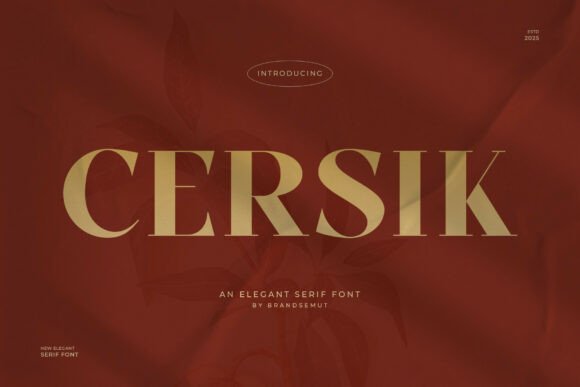
Cersik Font: Elevate Your Designs with Elegance and Sophistication
In the world of typography, a well-crafted font can make all the difference in elevating your designs from ordinary to extraordinary. For designers who demand sophistication and clarity, Cersik Font is an elegant and modern serif font that is sure to impress. With its well-balanced uppercase and lowercase letters, this typeface offers timeless beauty with a modern edge, making it ideal for luxury branding, magazine headlines, premium packaging, wedding invitations, and fashion-related visuals.
Key Features of Cersik Font
- Elegant and Modern Design: Cersik Font boasts a sleek and contemporary design that exudes sophistication and refinement.
- Well-Balanced Letters: The font features well-balanced uppercase and lowercase letters, ensuring perfect harmony and readability.
- Timeless Beauty: With its classic serif design, Cersik Font offers a timeless beauty that will never go out of style.
- Modern Edge: The font’s modern edge gives it a fresh and contemporary feel, perfect for designs that require a touch of innovation.
Ideal Use Cases for Cersik Font
Cersik Font is a versatile typeface that can be used in a variety of design projects, including:
- Luxury Branding: Cersik Font is perfect for luxury brands that require a sophisticated and elegant font to represent their brand identity.
- Magazine Headlines: The font’s bold and elegant design makes it ideal for magazine headlines, adding a touch of sophistication to any publication.
- Premium Packaging: Cersik Font is a great choice for premium packaging designs, adding a touch of luxury and refinement to any product.
- Wedding Invitations: The font’s elegant design makes it perfect for wedding invitations, adding a touch of romance and sophistication to any wedding stationery.
- Fashion-Related Visuals: Cersik Font is a great choice for fashion-related visuals, such as fashion magazines, advertisements, and social media graphics.
Typography Tips for Using Cersik Font
To get the most out of Cersik Font, here are some typography tips to keep in mind:
- Use it as a Headline Font: Cersik Font is perfect for headlines, adding a touch of elegance and sophistication to any design.
- Pair it with a Sans-Serif Font: Pairing Cersik Font with a sans-serif font can create a beautiful contrast, adding visual interest to any design.
- Experiment with Font Sizes: Don’t be afraid to experiment with different font sizes to create visual hierarchy and emphasis.
- Pay Attention to Kerning: Make sure to pay attention to kerning, ensuring that the letters are evenly spaced and visually appealing.
Design Inspiration with Cersik Font
Cersik Font is a versatile typeface that can be used in a variety of design projects, from luxury branding to fashion-related visuals. Here are some design inspiration ideas to get you started:
- Create a Luxury Brand Identity: Use Cersik Font to create a luxury brand identity that exudes sophistication and elegance.
- Design a Fashion Magazine: Use Cersik Font to design a fashion magazine that showcases the latest fashion trends and styles.
- Develop a Wedding Stationery: Use Cersik Font to develop a wedding stationery that adds a touch of romance and sophistication to any wedding.
In conclusion, Cersik Font is an elegant and modern serif font that is perfect for designers who demand sophistication and clarity. With its well-balanced uppercase and lowercase letters, this typeface offers timeless beauty with a modern edge, making it ideal for luxury branding, magazine headlines, premium packaging, wedding invitations, and fashion-related visuals. By following the typography tips and design inspiration ideas outlined above, you can create stunning designs that showcase the beauty and elegance of Cersik Font.